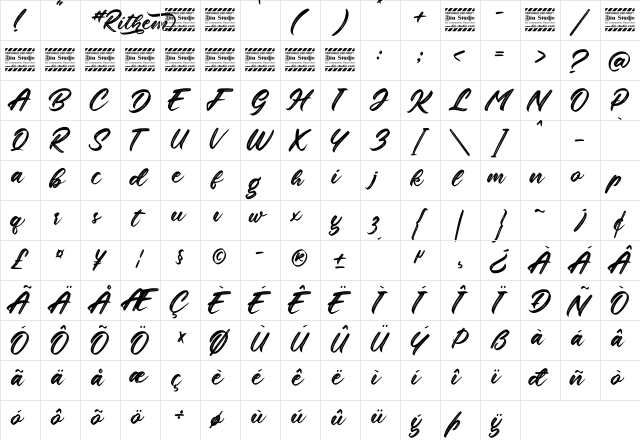
Rithem Personal Use Regular
| Designer | Donis Miftahudin |
Design Context for Rithem Personal Use Typeface
Rithem Personal Use is a composed and adaptable typeface that performs quietly and consistently across a wide range of design contexts.